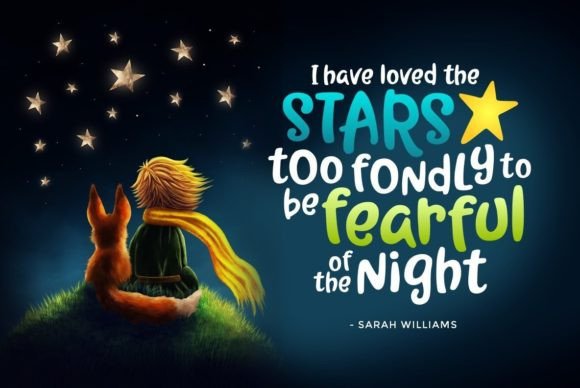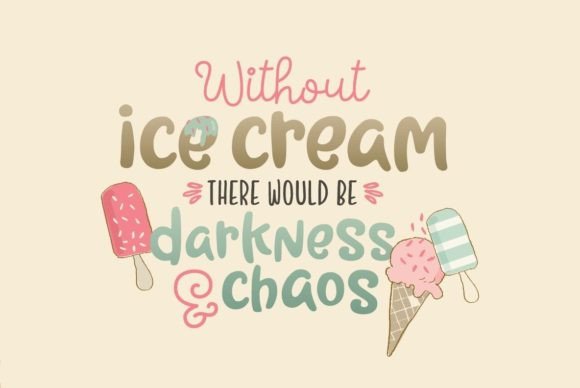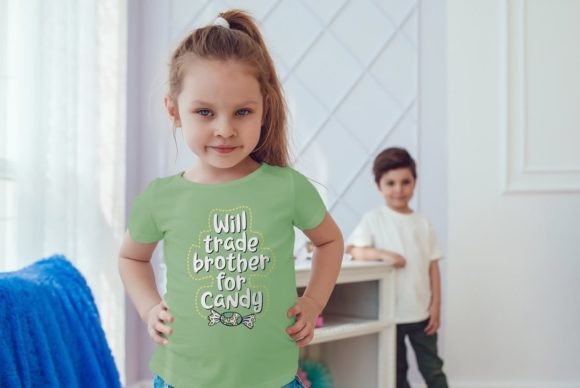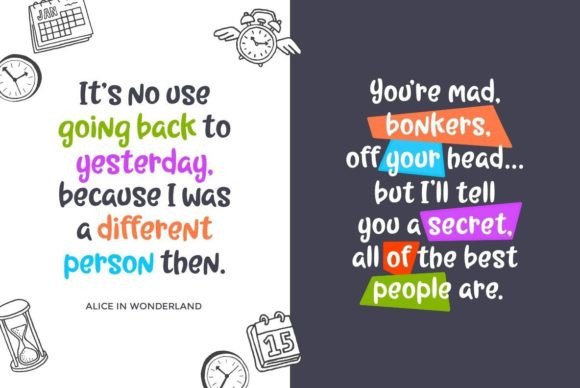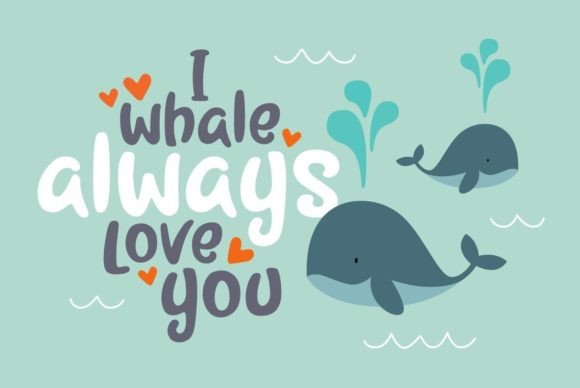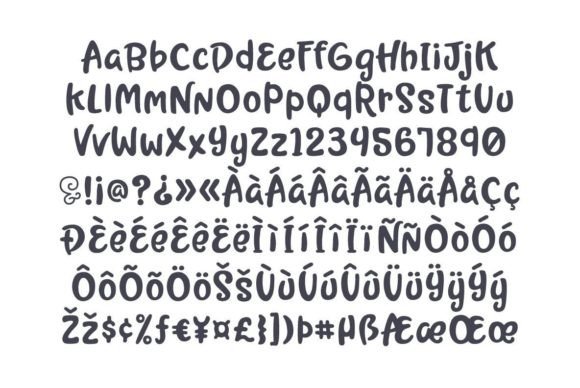
Introduction to Milk & Honey Font
Milk & Honey.
A sweet and simple hand-drawn font Its bold and curvy style makes it perfect for headlines, t-shirt designs, or typographic posters.
Key Features of Milk & Honey Font
Why Choose Milk & Honey Font?